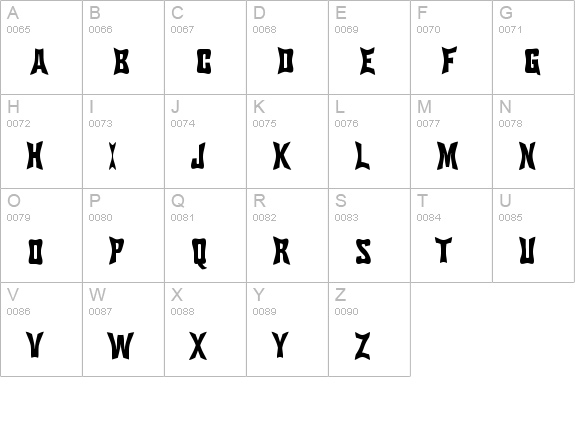
Pinch Drunk Font Details
Introducing Pinch Drunk, a captivating and whimsical font that is sure to add a touch of playfulness and charm to any design project. This unique typeface combines the elegance of hand-drawn letterforms with a hint of quirkiness, resulting in a font that is both visually appealing and versatile. Pinch Drunk is perfect for a wide range of creative endeavors, such as branding, packaging, social media graphics, invitations, and more. Its distinctive characters exude a sense of lightheartedness and bring forth a delightful energy that instantly captures attention. With its carefully crafted curves and intricate details, Pinch Drunk stands out from the crowd, making it an ideal choice for those seeking to make a lasting impression. Whether you're designing a logo for a boutique shop or crafting an eye-catching poster, this font will effortlessly elevate your work to new heights. The best part? Pinch Drunk is completely free! This font is available to download at FontsMarket.com, a reputable platform that offers a vast collection of high-quality fonts for all your creative needs. Don't miss out on the opportunity to enhance your designs with this captivating font – download Pinch Drunk today and let your imagination run wild.